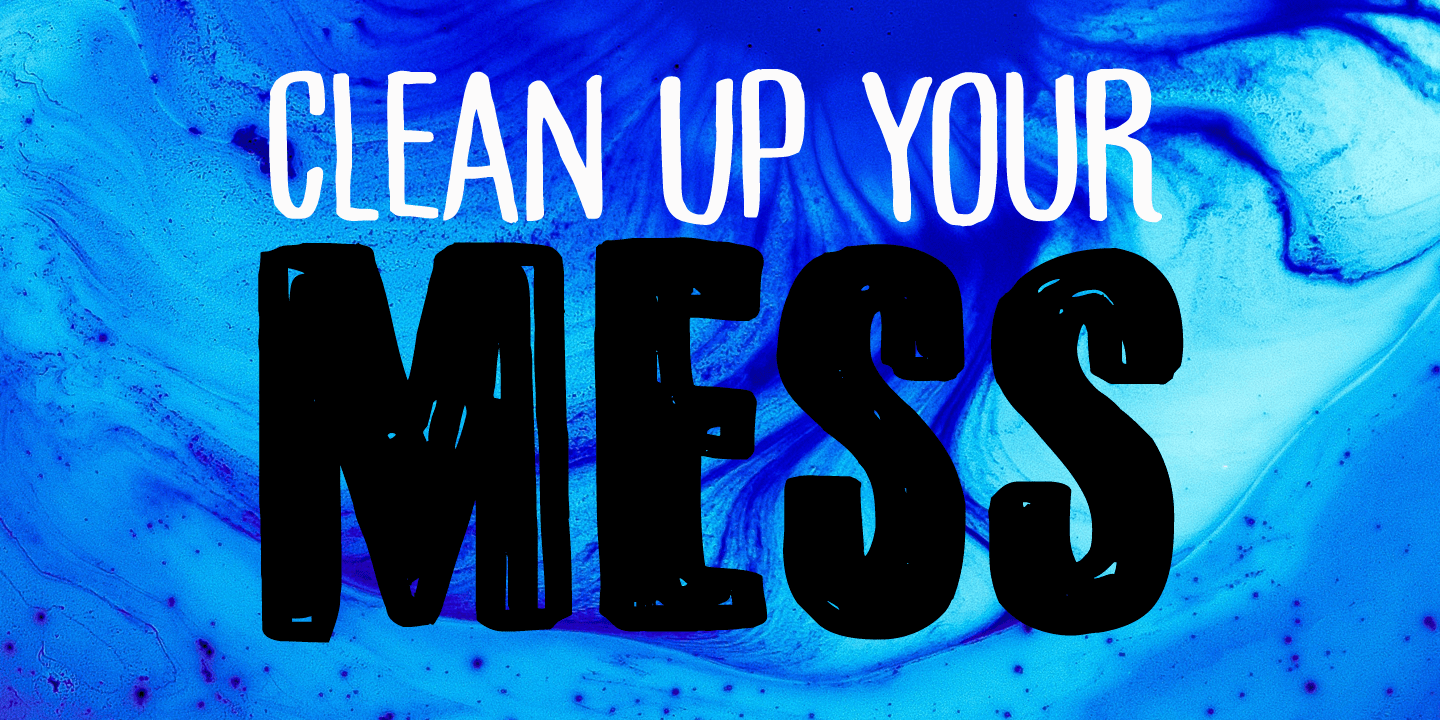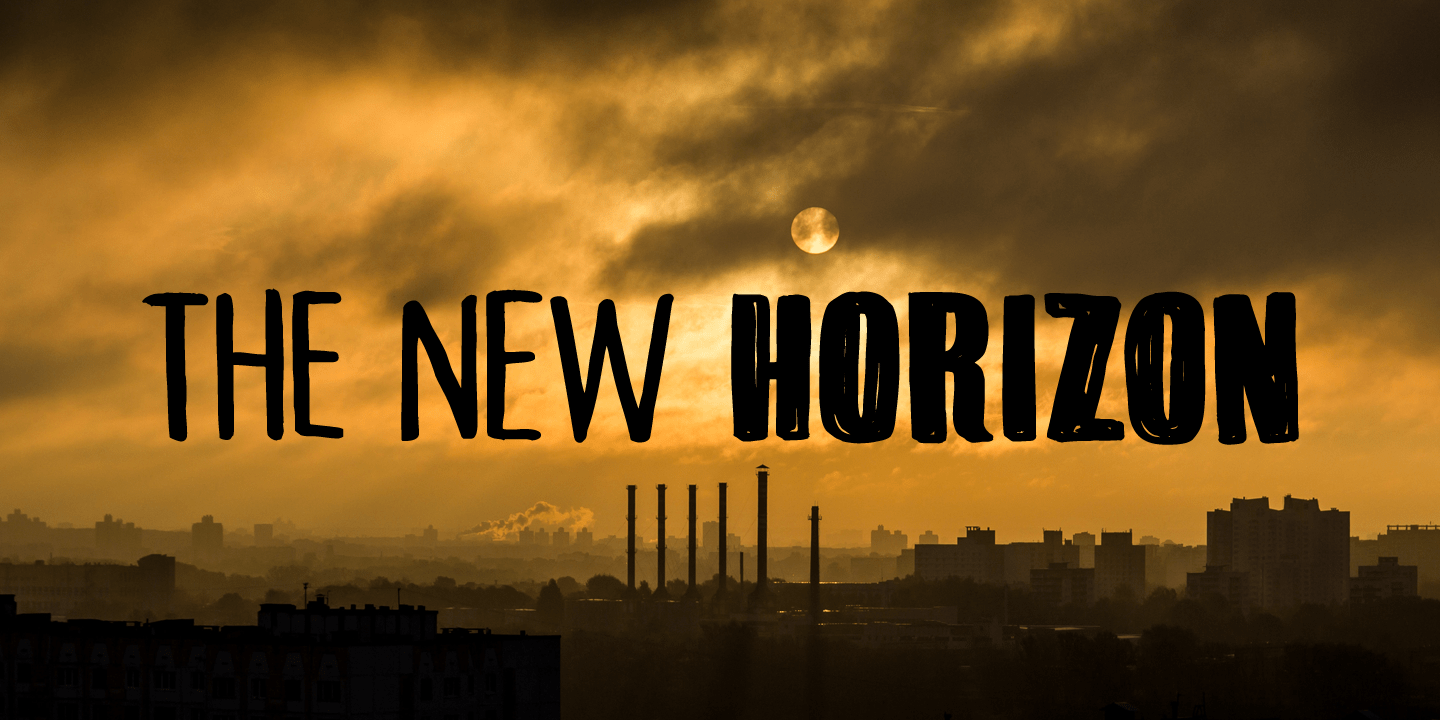
About Bitumen
Bitumen is a sticky, black, and highly viscous liquid form of petroleum. When I created this font, it reminded me a bit of asphalt, hence the name. Bitumen is a handmade font based on Schmallfette Grotesk by Walter Haettenschweiler and Haettenschweiler…